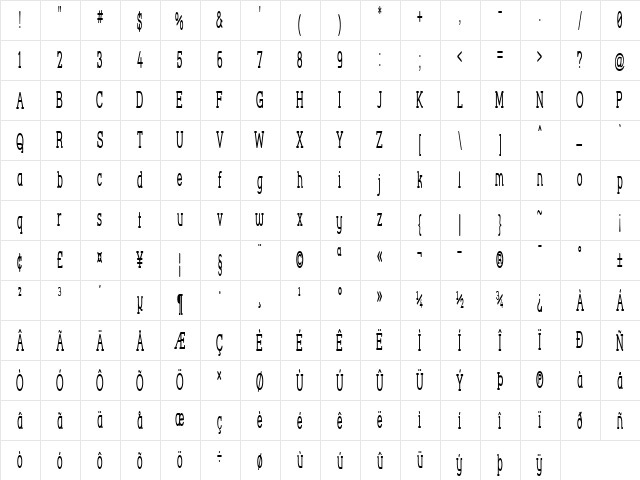
Street Corner Slab Narrower Regular
Design Context for Street Corner Slab Narrower Typeface
Street Corner Slab Narrower combines the readability of serif typography with the visual weight of a slab construction, resulting in a typeface that feels both authoritative and approachable. The condensed width makes it efficient for tight spaces without sacrificing legibility.
Works well in editorial design, news publishing, impactful branding, and poster typography.
Pro Tip: Try Street Corner Slab Narrower set tight in headlines for a classic editorial feel. Its slab serifs create strong horizontal rhythm that anchors a page layout.